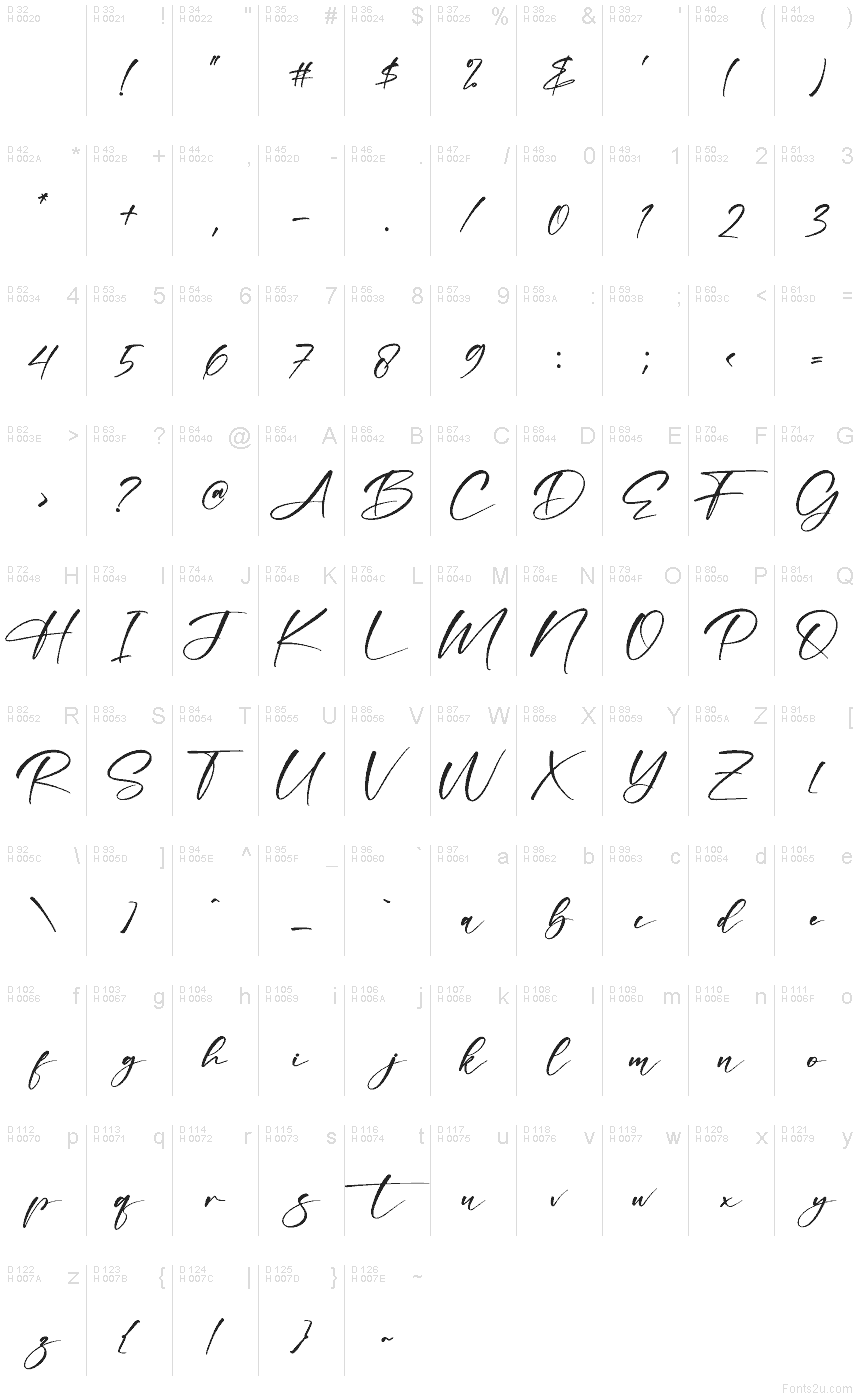
Bonefista Signate
Bonefista Signate font by Letterena Studios is an elegant handwritten signature font designed to make each project and design an eye-catcher. It is expressive, sophisticated, and pleasing to the eye which makes it a top candidate for lots of designs for both print and digital ones.
Experts digging for a new free handwritten font will surely appreciate using Bonefista Signate in logos, branding, typography patterns, packaging design ideas such as perfume labels or chocolate package designs.